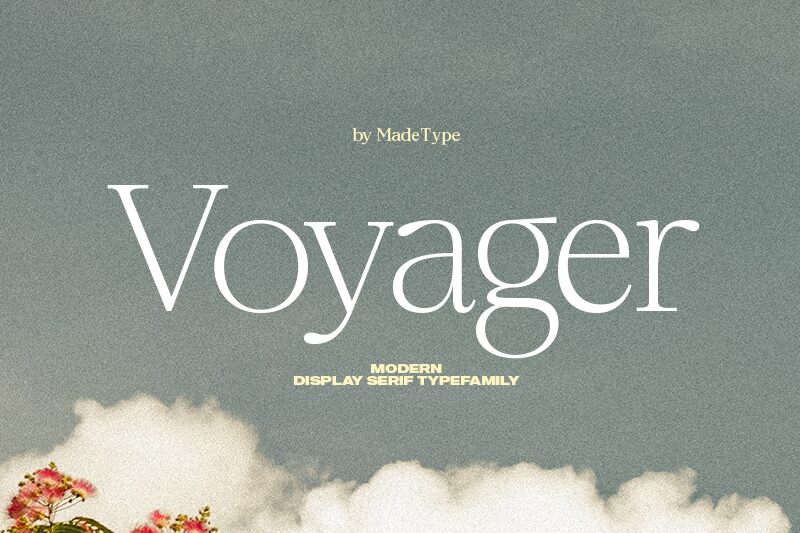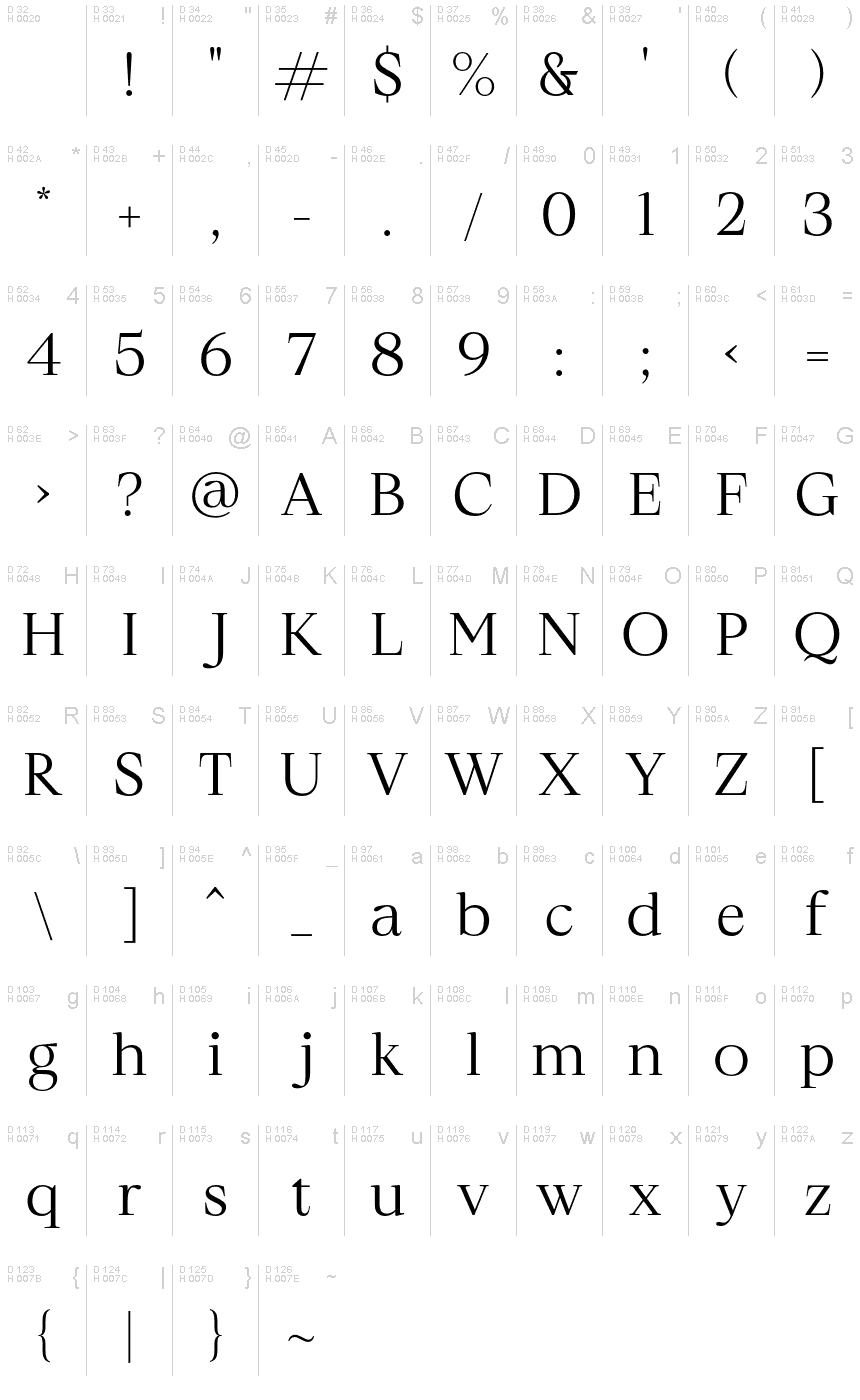
MADE Voyager, designed by MadeType, is a captivating serif font that effortlessly blends elegance with modernity. With its semi-light weight, this versatile typeface is ideal for various projects that require a touch of sophistication and readability.
Whether it's designing stunning book covers that exude timeless charm or crafting engaging editorial layouts for magazines and newspapers, MADE Voyager brings a unique sense of grace and refinement to any print or digital project. Its clean lines and graceful curves make it equally suitable for creating impactful logos, elegant wedding invitations, or even sophisticated restaurant menus.